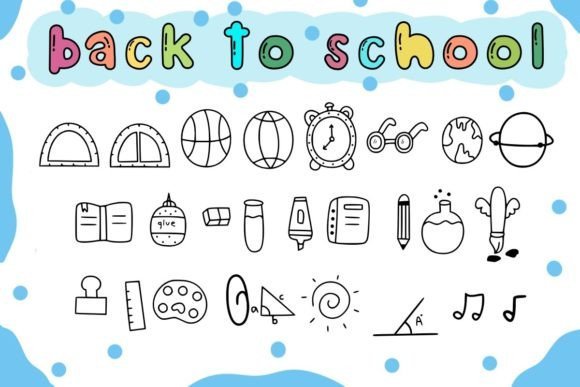
Get Ready for a Fun-Filled Semester with the Back to School Font
As the summer sun begins to set, the air fills with the excitement of new beginnings. The sound of backpacks zipping, pencils sharpening, and the rustle of fresh notebooks – it’s that time of the year again! You’re probably bursting with ideas to make this school year unforgettable for the little ones in your life. And what better way to express your creativity than with a dash of fun and whimsy?
Enter the Back to School Font, a delightful dingbats font designed to make your designs stand out. With its adorable illustrations of school-themed icons, this font is perfect for adding a personal touch to your projects. Whether you’re a seasoned designer or a crafty parent, the Back to School Font is a valuable addition to your toolkit. It’s versatile, fun, and guaranteed to make your designs more engaging and memorable.
Back to School Font Key Features
- Font Family: A custom-designed font with a playful, educational theme.
- Unique Characteristics: Features a distinctive, hand-drawn feel with a mix of rounded and geometric shapes, perfect for adding a personal touch to educational materials.
Back to School Font Review
Overall, I’d say the Back to School Font is a decent addition to any educational project. Here are some things I appreciate about it:
- ✨ Playful feel: The font does capture the lighthearted spirit of the back-to-school season.
- ✨ Kid-friendly vibe: The design is perfect for creating materials that appeal to young students.
- ✨ Versatility: It works well for posters, flyers, and even digital materials like presentations and social media graphics.
However, there are some limitations I’d like to point out:
- ⚠️ Limited font weight options: The font only comes in a few weights, which can make it difficult to achieve the right level of contrast and legibility.
- ⚠️ Limited language support: The font doesn’t support many non-English languages, which can be a problem for international projects.
Overall, I’d say the Back to School Font is a solid choice for educational projects that require a playful and kid-friendly feel. While it has some limitations, it’s a great starting point for creating engaging and effective materials. Just be sure to consider the font weight and language support limitations when using it in your project.
Some tips for getting the most out of the “Back to School Font” include:
- Using the font in combination with other educational-themed graphics and fonts.
- Customizing the font style and size to match your brand or design aesthetic.
- Using the font for school-related projects, such as lesson plans, worksheets, and presentations.
Alternatives to Back to School Font
Curry Script
Curry Script is a playful, handwritten font that’s perfect for adding a touch of whimsy to your designs. It’s ideal for use in titles, headings, and other text elements where you want to convey a sense of friendliness and approachability. Compared to Back to School Font, Curry Script has a more organic, free-flowing feel that’s well-suited for modern and creative designs.
Great Vibes is a beautiful, cursive font that’s great for adding a touch of elegance and sophistication to your designs. It’s perfect for use in titles, headings, and other text elements where you want to convey a sense of luxury and refinement. Compared to Back to School Font, Great Vibes has a more refined and polished feel that’s well-suited for high-end and premium designs.